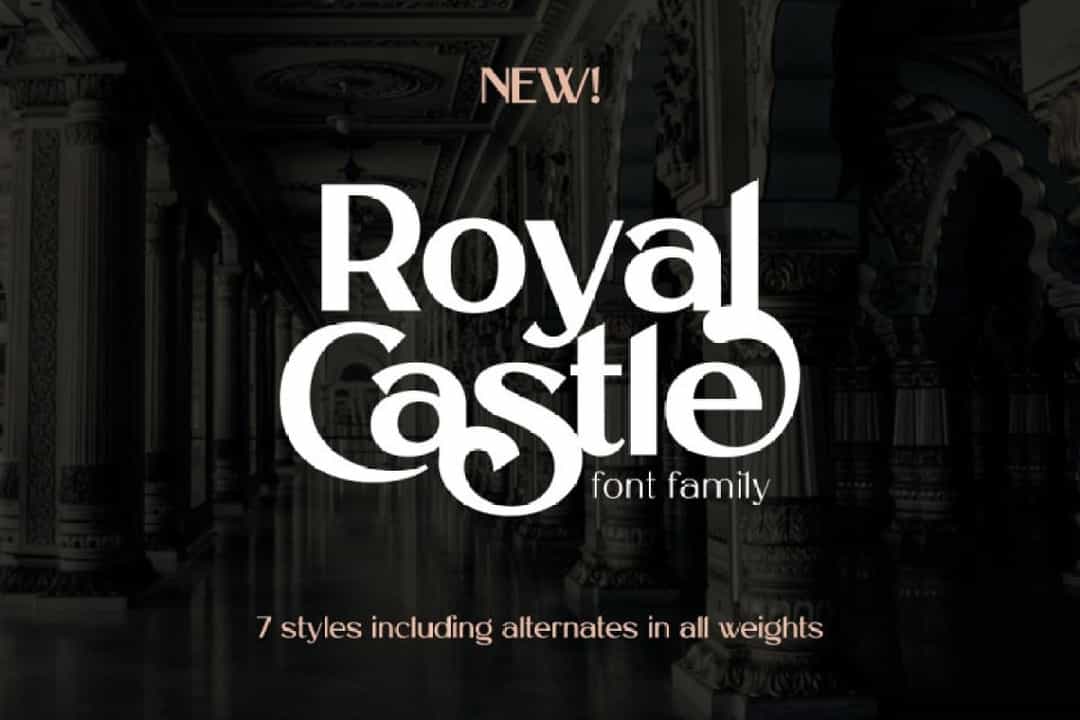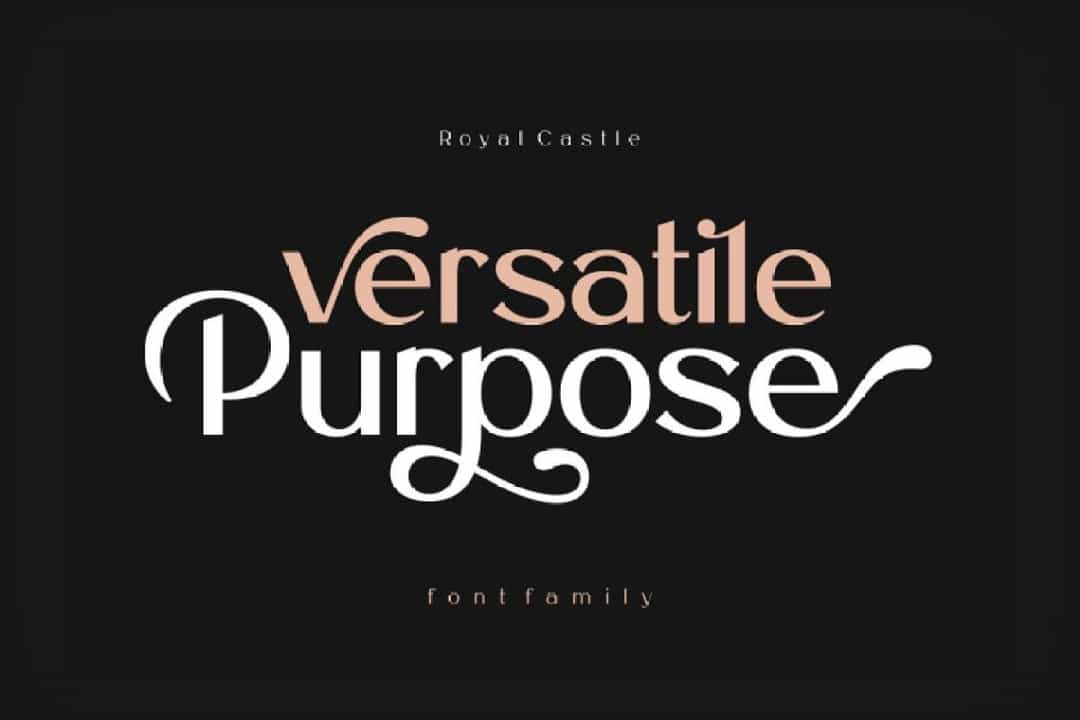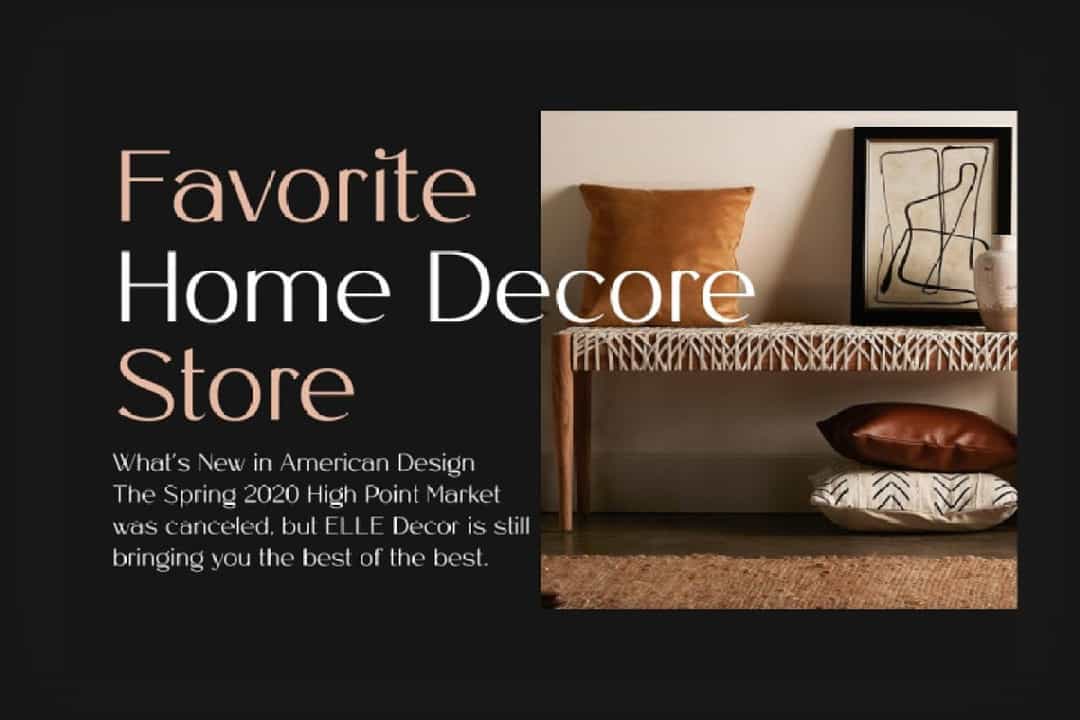
Discover Royal Castle Font, part of the Sans Serif collection—a versatile and unique font perfect for adding a personal touch to your projects. Download it for free and enjoy crafting designs with style, from invitations to social media posts. This font is available exclusively for personal use, giving you the freedom to create without limits. Unlock your creativity with Royal Castle Font today!
Royal Castle is an exclusive sans serif font family with a sophisticated design and stunning swashes, available in seven styles and providing the perfect vintage aesthetic – the ideal font to bring retro style into any design project!